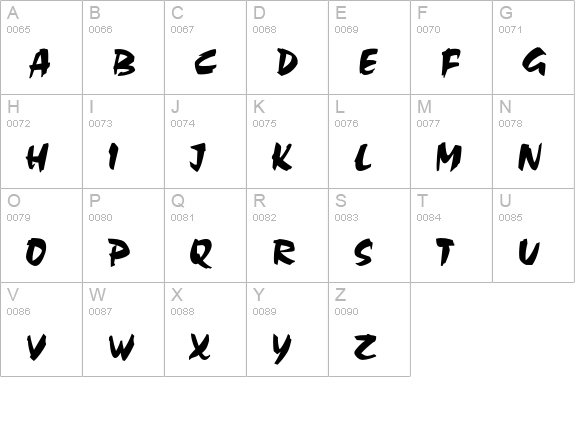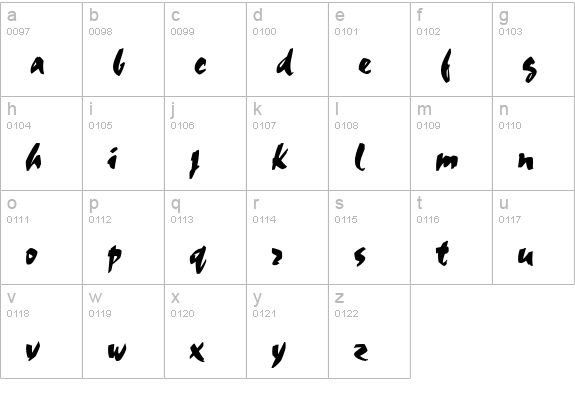
Choc Std Font Details
Choc Std font is a modern and stylish typeface that exudes elegance and sophistication. With its sleek lines and contemporary design, this font is perfect for adding a touch of class to any project. The smooth curves and sharp edges of Choc Std font make it a versatile choice for a wide range of applications, from branding to editorial design. What makes Choc Std font even more appealing is that it is available for free download at FontsMarket.com. This means that you can easily access this high-quality font without any cost, making it a great option for designers on a budget. Don't miss out on the opportunity to enhance your projects with the stunning Choc Std font - download it today and elevate your design work to the next level.